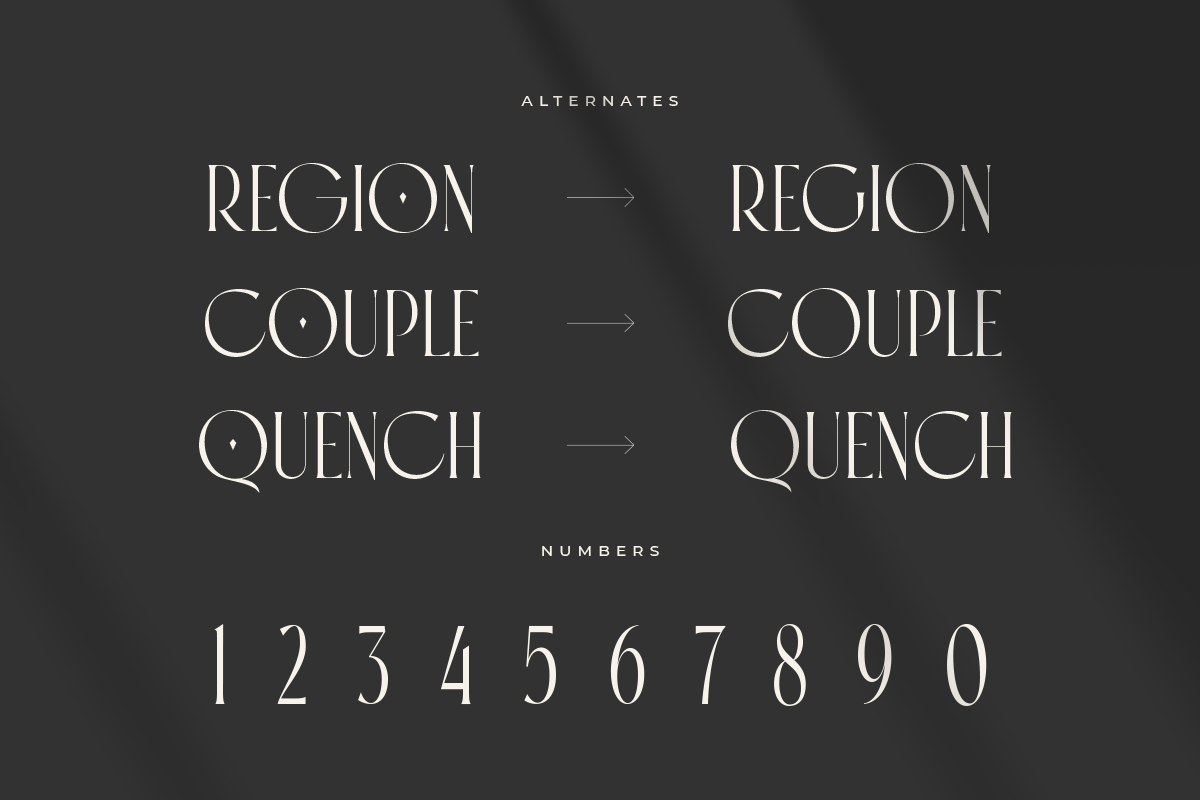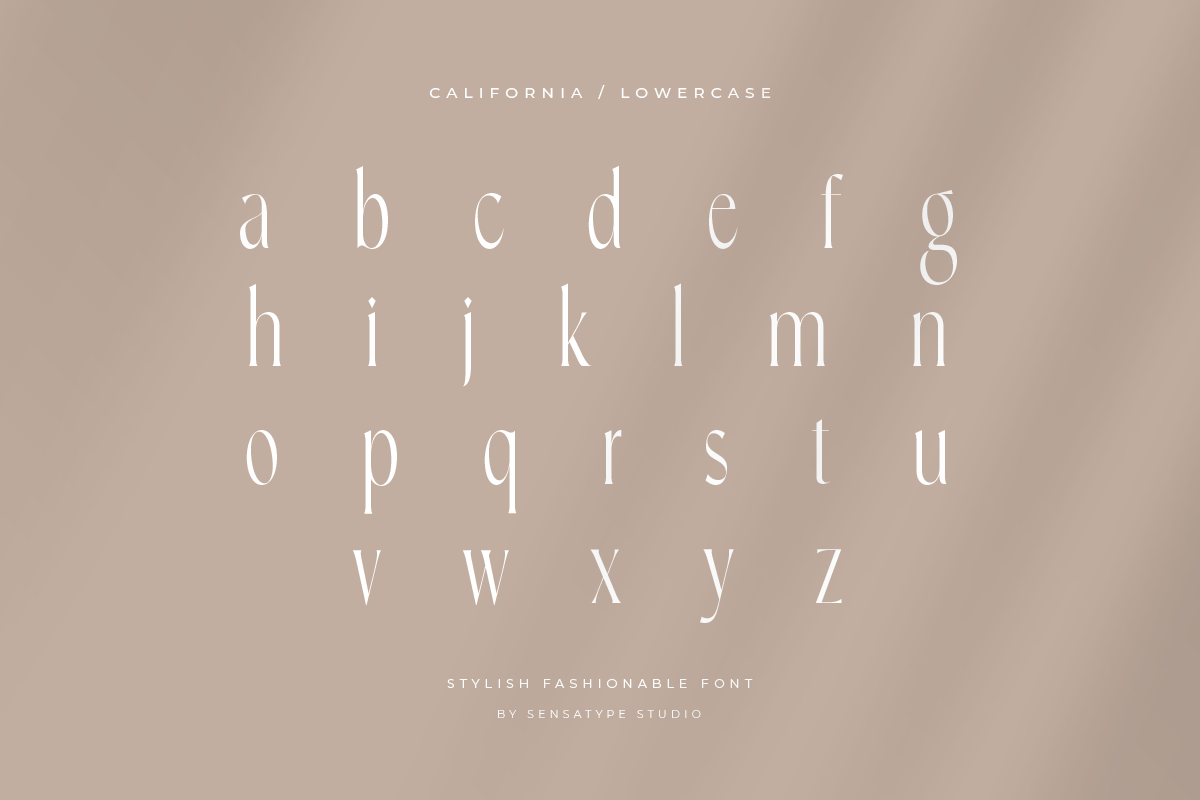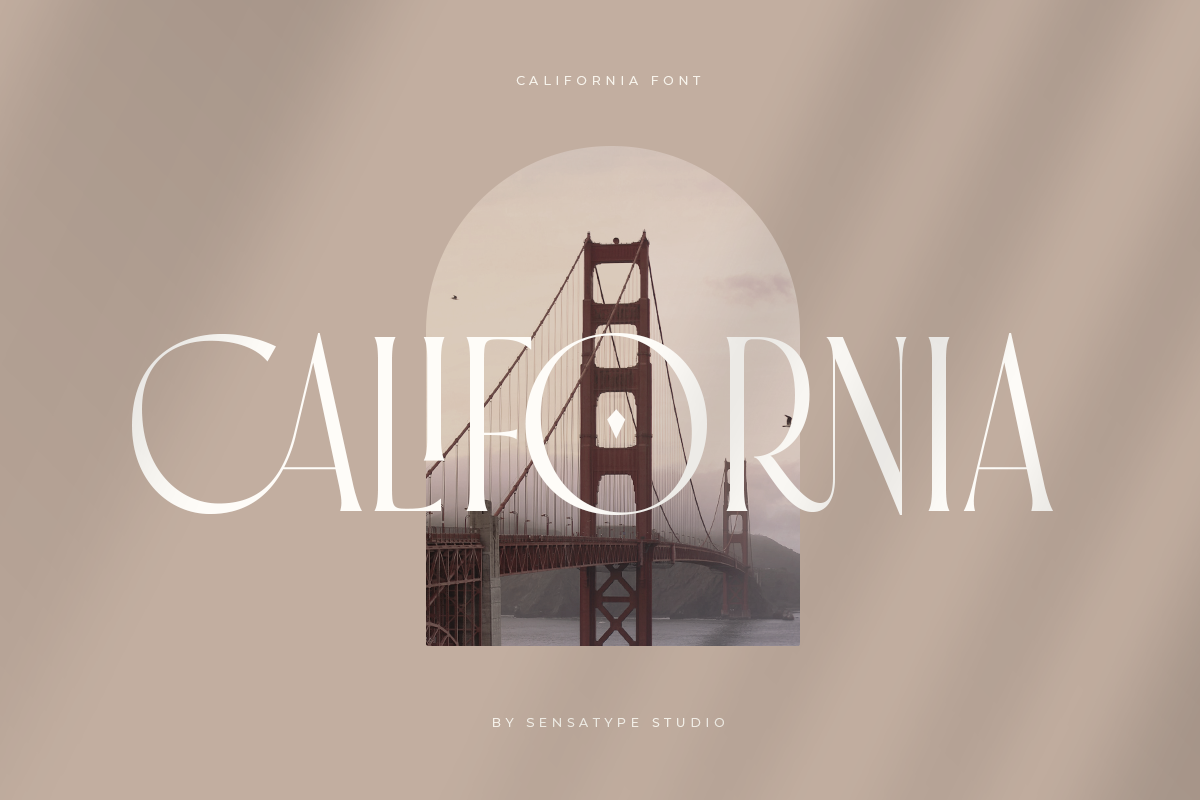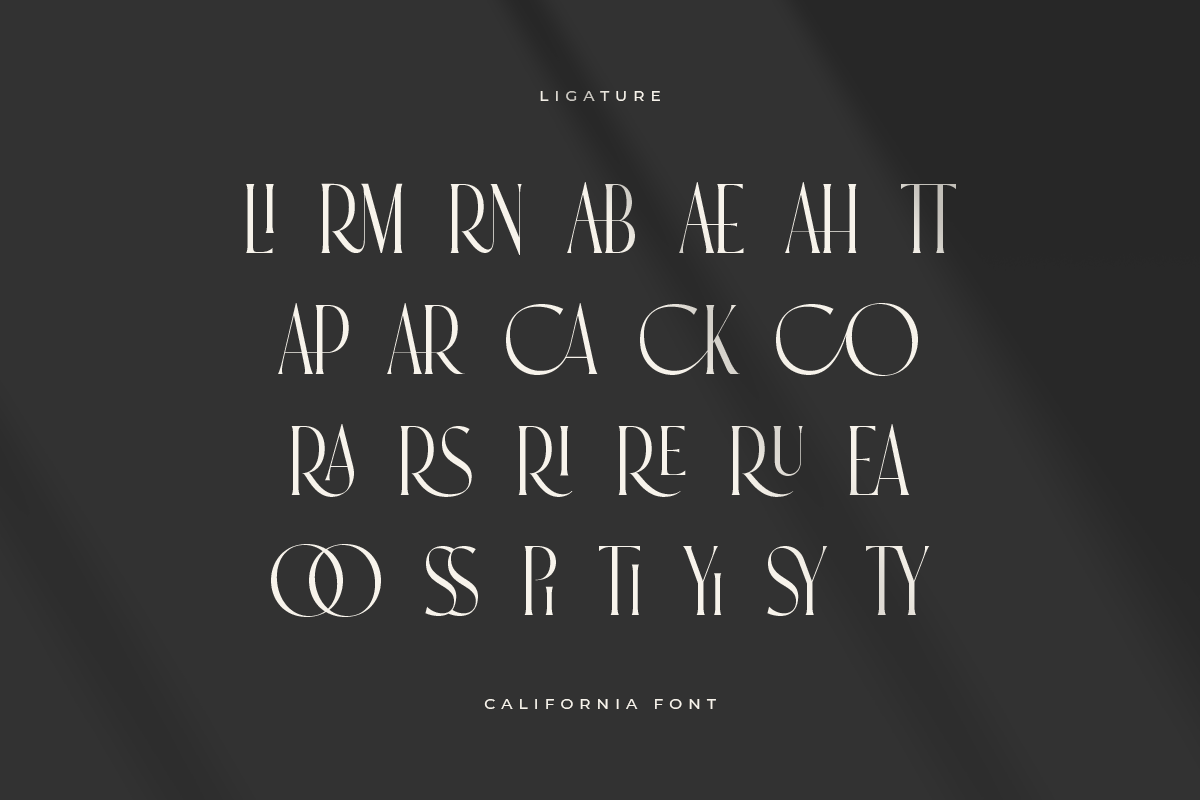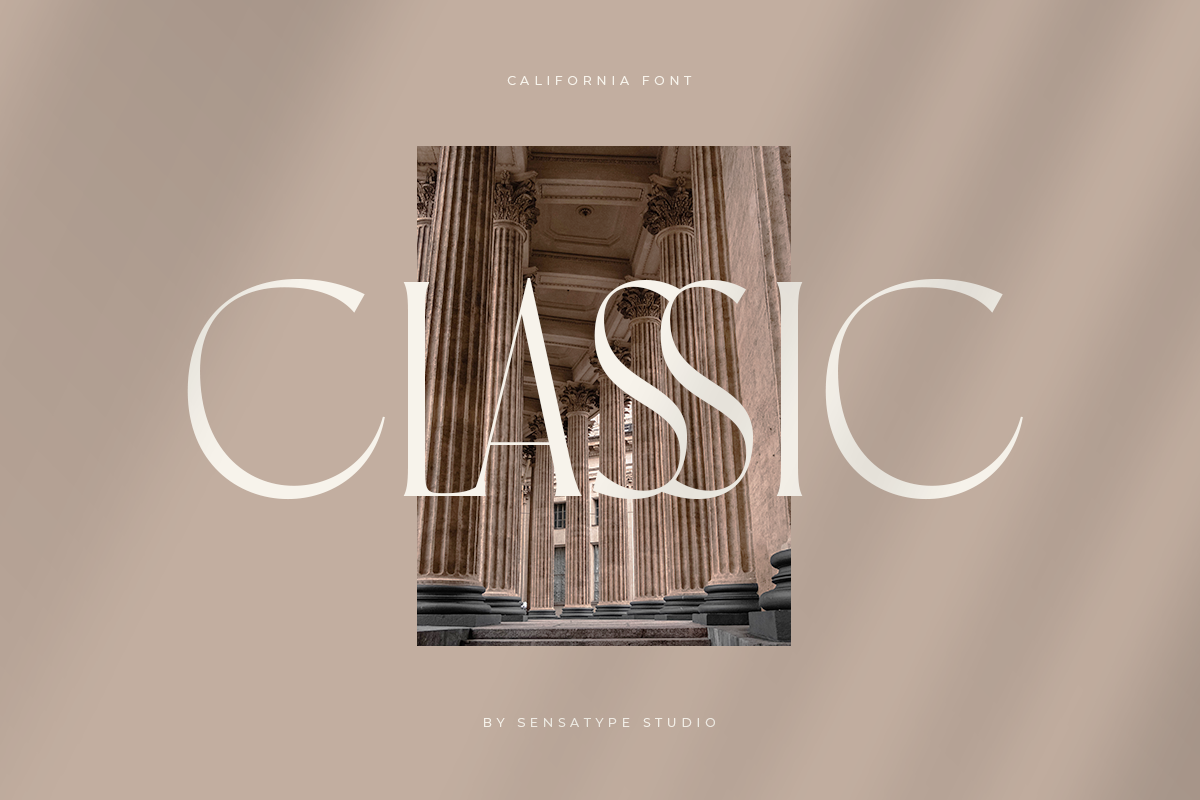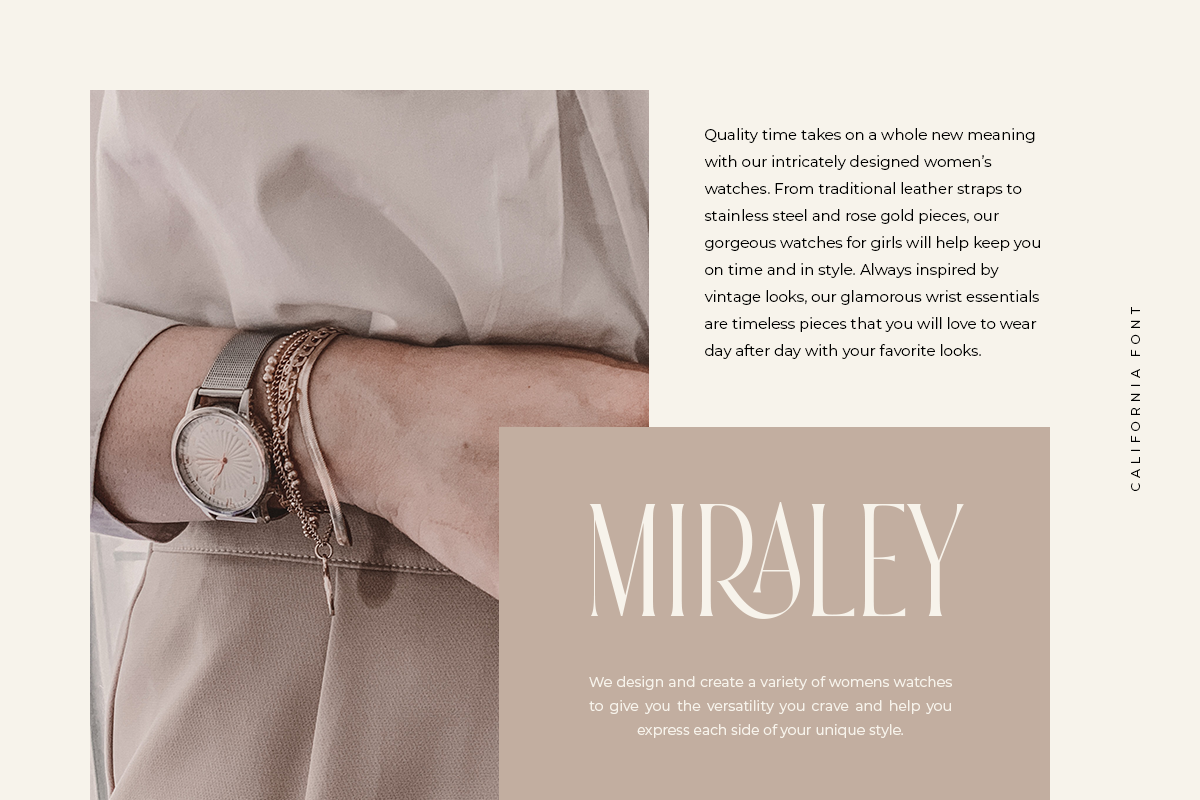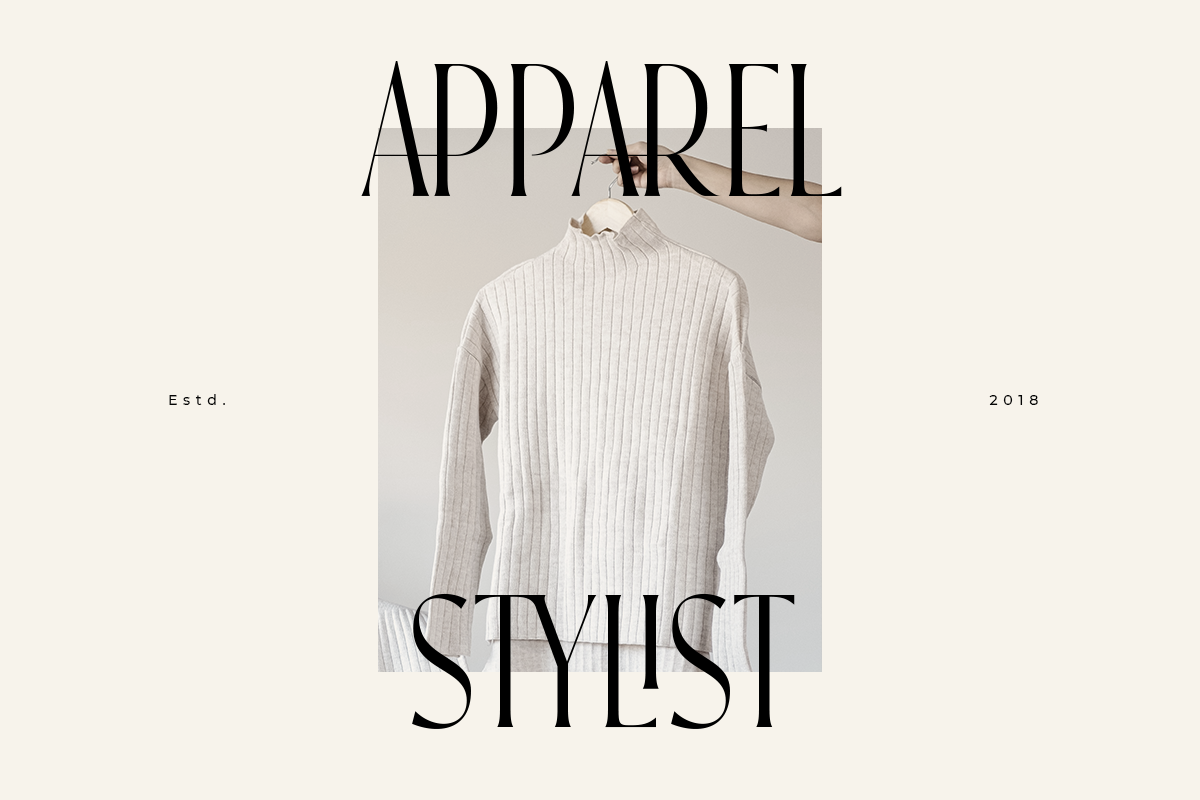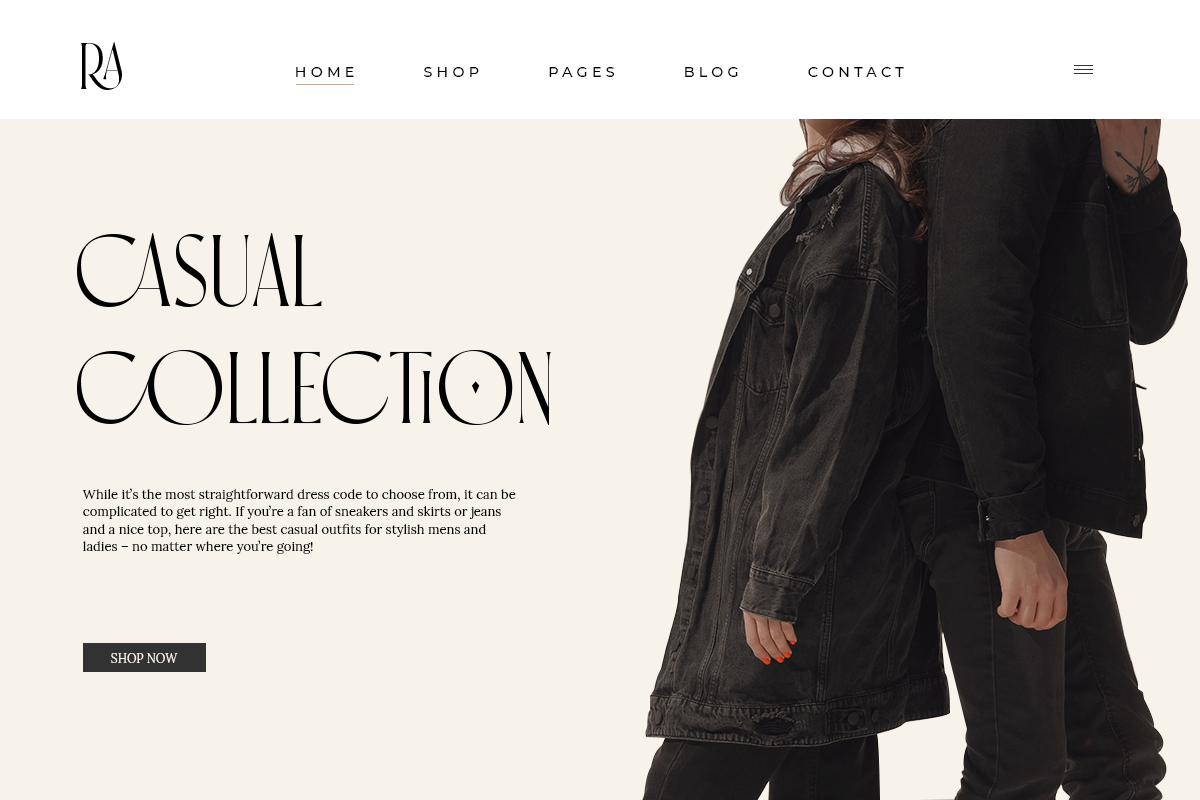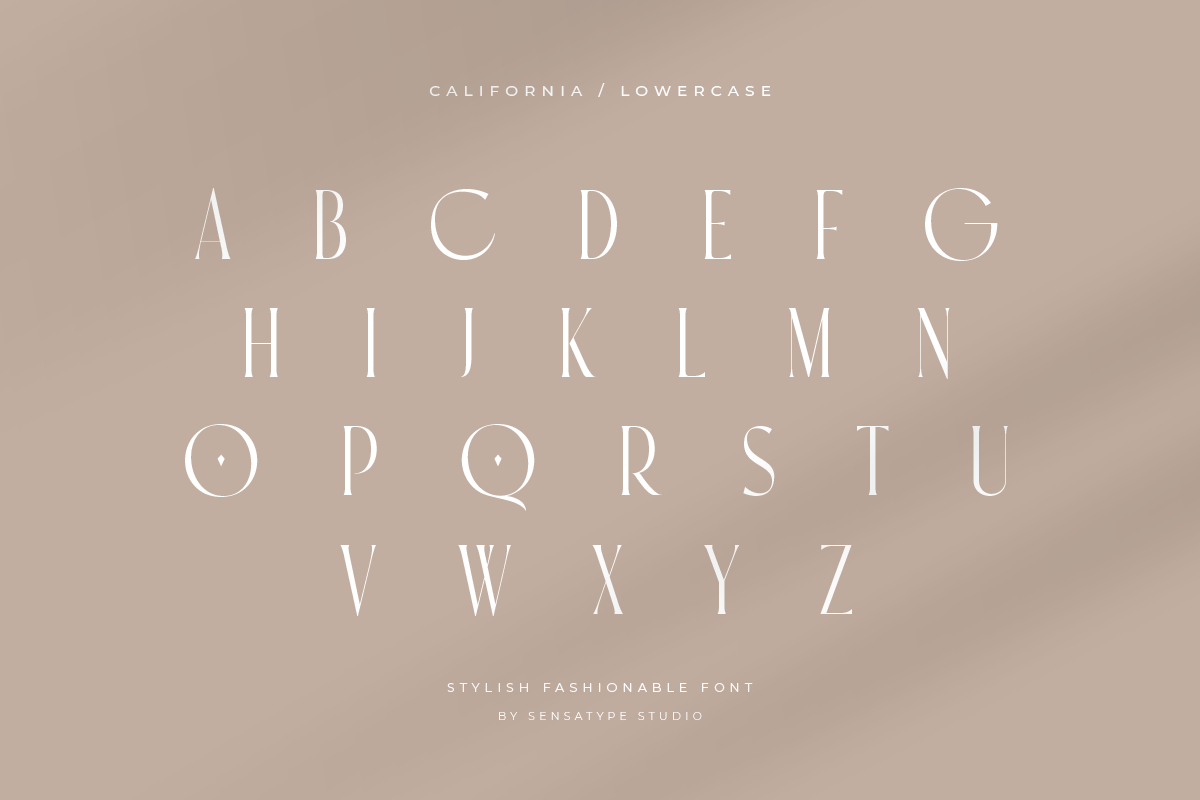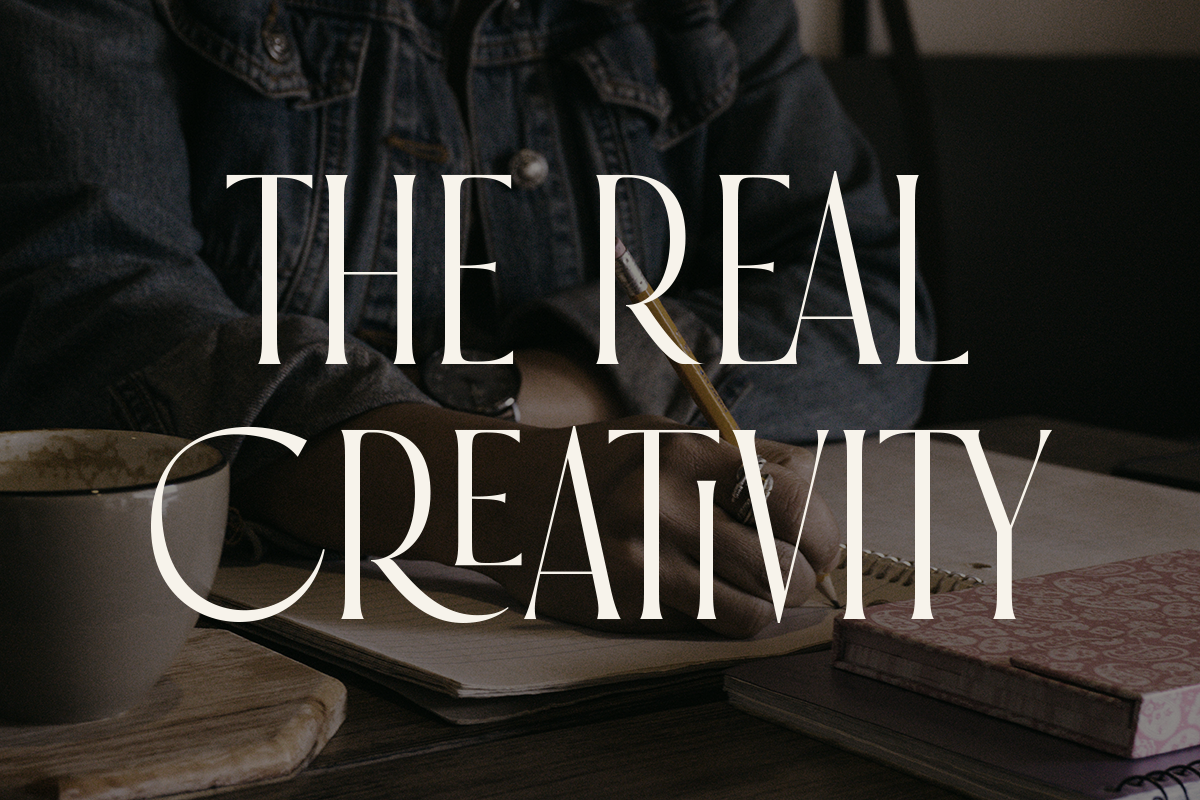
California - Stylish Fashion Font
California is a Stylish Fashionable Serif Font
A Serif Display font that we created special for classy branding needs, with extra ligature in unique and vintage shape add value of your brand. It's so nice to leverage designer or product owner that need solutions to make their design look more stylish and fashionable. And specially for California font, We prepared any ligatures, and any alternate characters to help you create unlimited variations for your creative needs.
California sans serif font ready with:
Any options to get creative variations (combination of Alternate and Ligatures)
Preview as a inspirations that you can do with California font
Ready with Lowercase and Uppercase characters